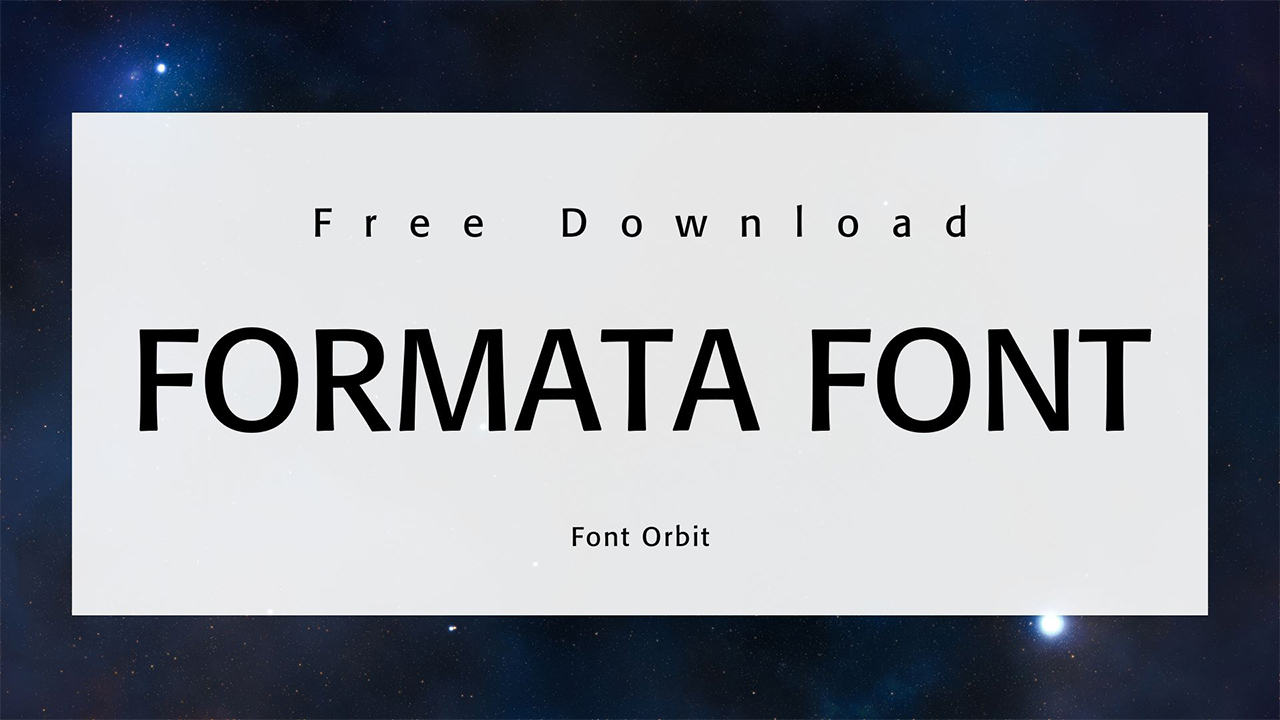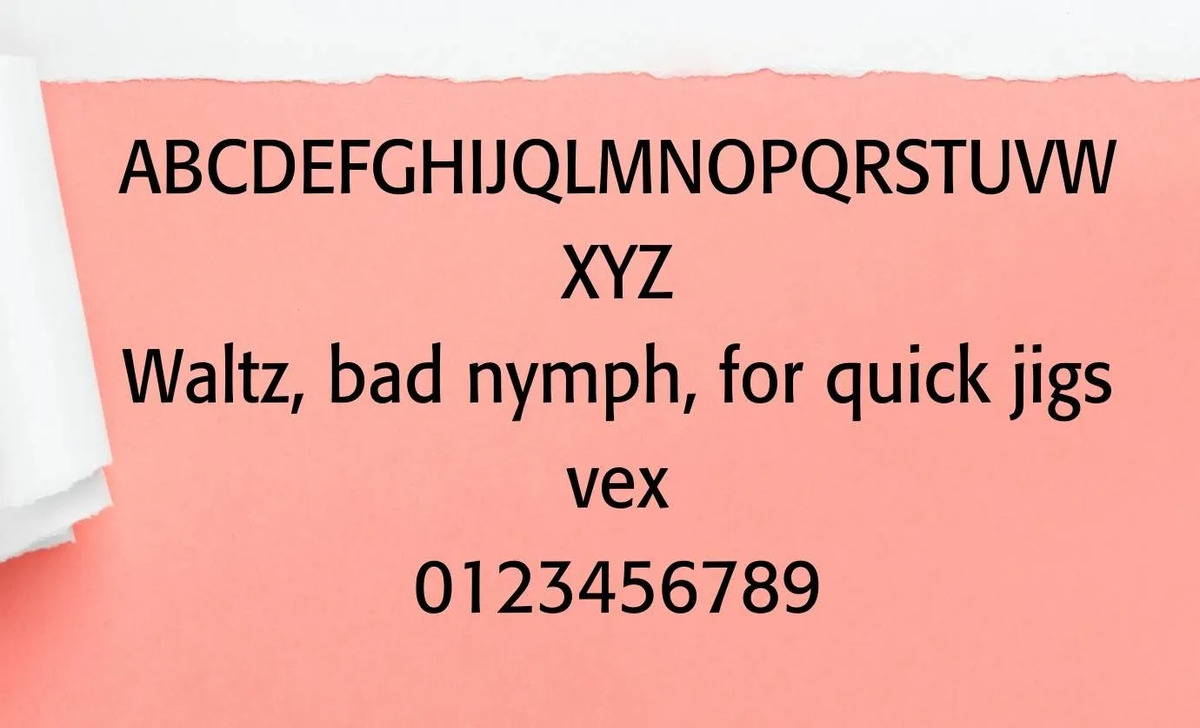
Formata font is a sophisticated and versatile sans-serif typeface designed by the late German type designer Bernd Möllenstädt in 1984. With its clean, modern lines and extensive range of styles, Formata is a popular choice for a wide variety of design projects, particularly those that require strong, impactful headlines and titles.
Formata belongs to the sans-serif category and offers a broad range of styles and weights, making it a flexible option for diverse design needs. The font features a comprehensive character set, including 235 modern characters such as uppercase, lowercase, numbers, basic punctuations, currency symbols, updated icons, and a variety of special characters. The font family includes:
With a total of 28 styles and 7 weights, Formata provides designers with the tools they need to create everything from delicate, lightweight text to bold, commanding headlines. Formata suits a wide range of design applications, including:
Formata is a timeless and adaptable typeface that excels in various design contexts. Whether you’re working on digital or print media, this font family provides the flexibility and range needed to bring your creative vision to life. Its multiple styles and extensive character set make it a go-to choice for designers seeking a modern and professional look.
2.When Was The Formata Typeface Created?
In 1984, German typedesigner Erik Spiekermann and his team created the Formata typeface. Developers created it as a modern, highly legible sans-serif typeface, widely used in both print and digital media.